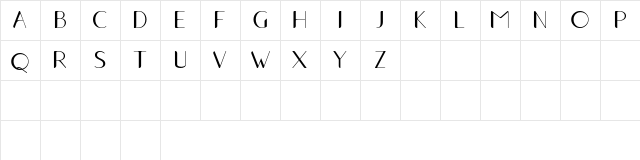
Complete TRAHO2 Regular glyph index. Displaying only characters natively supported by TRAHO2 Regular font.
Design Context for TRAHO2
TRAHO2 is a composed and adaptable typeface that performs quietly and consistently across a wide range of design contexts.